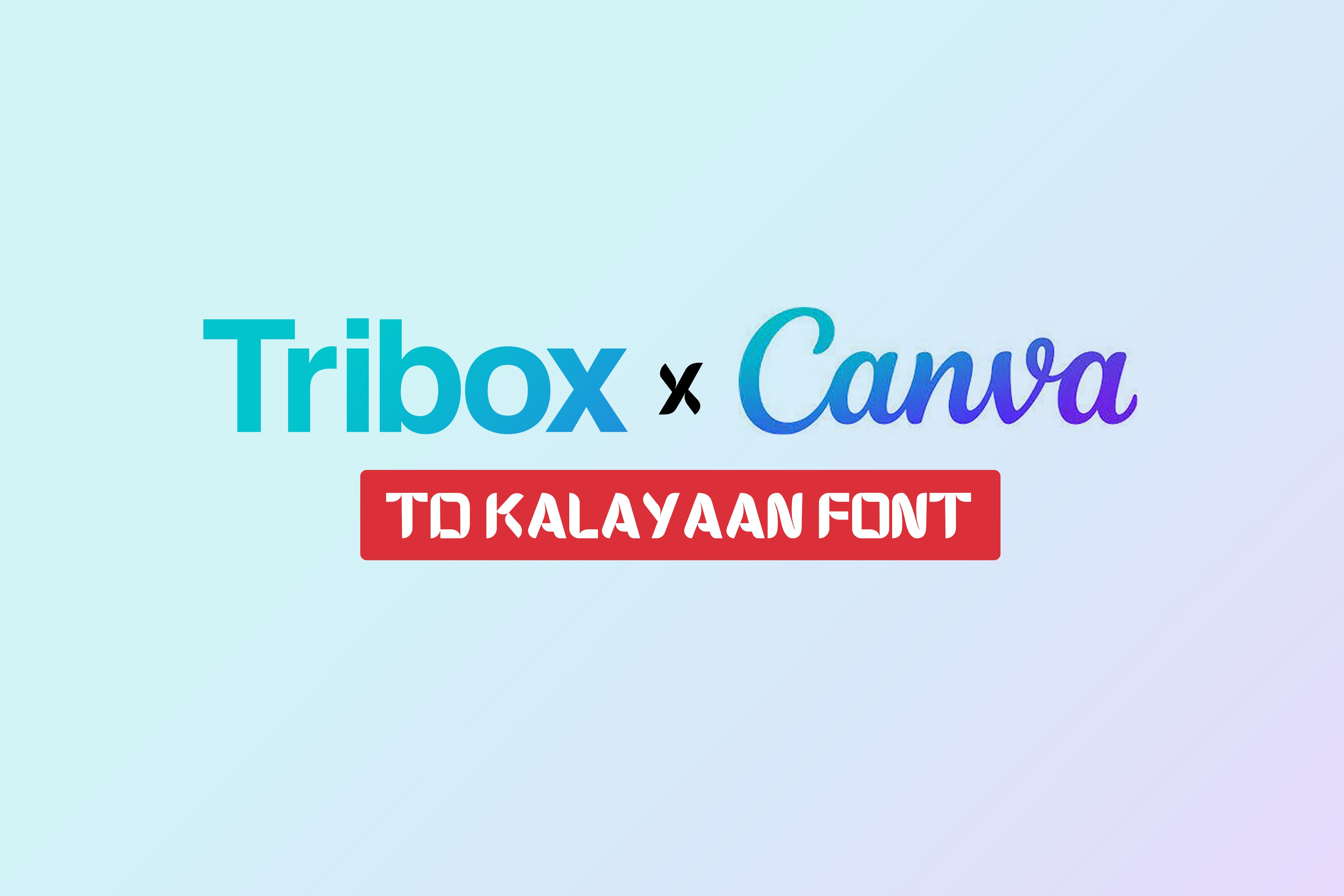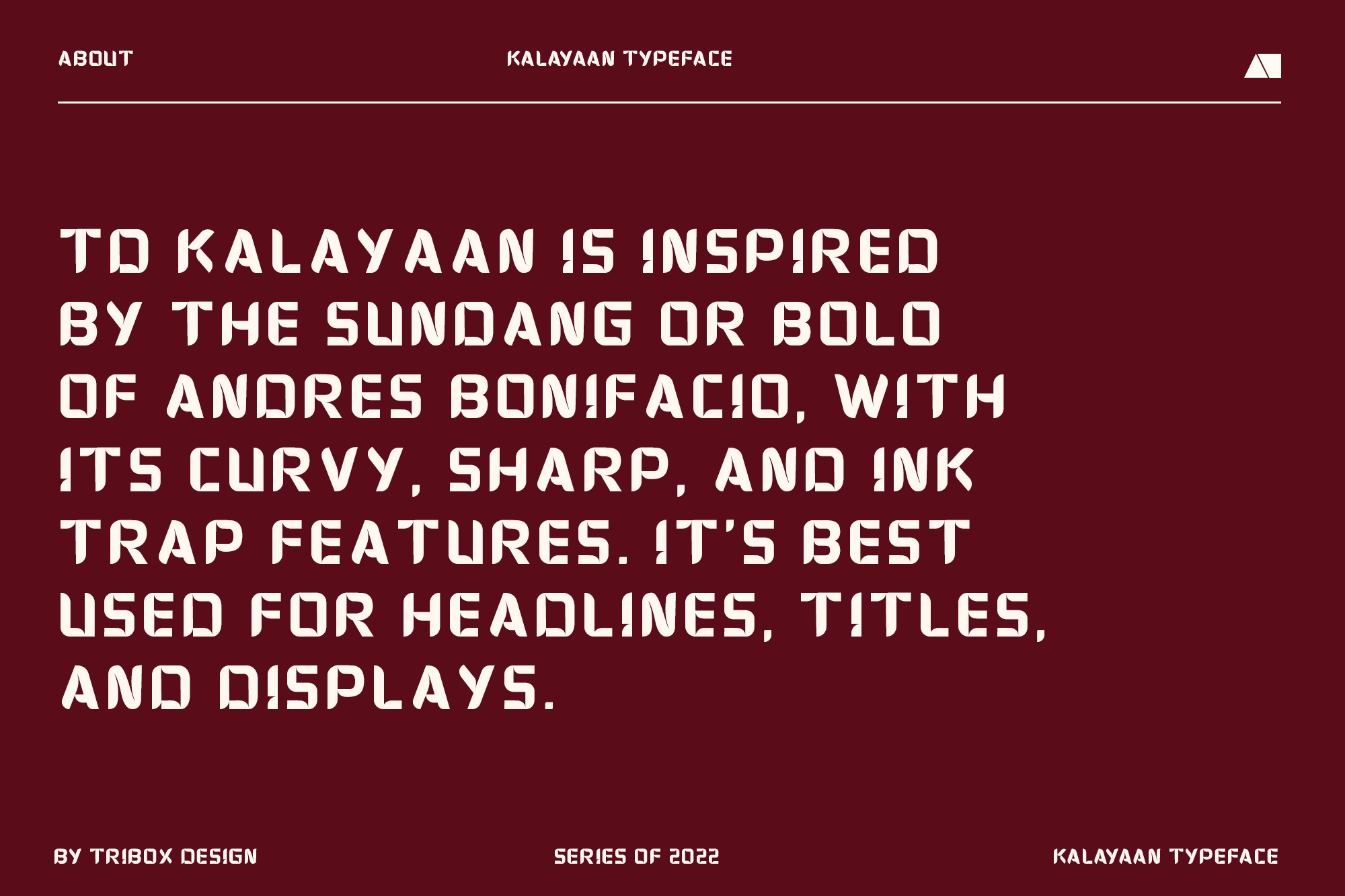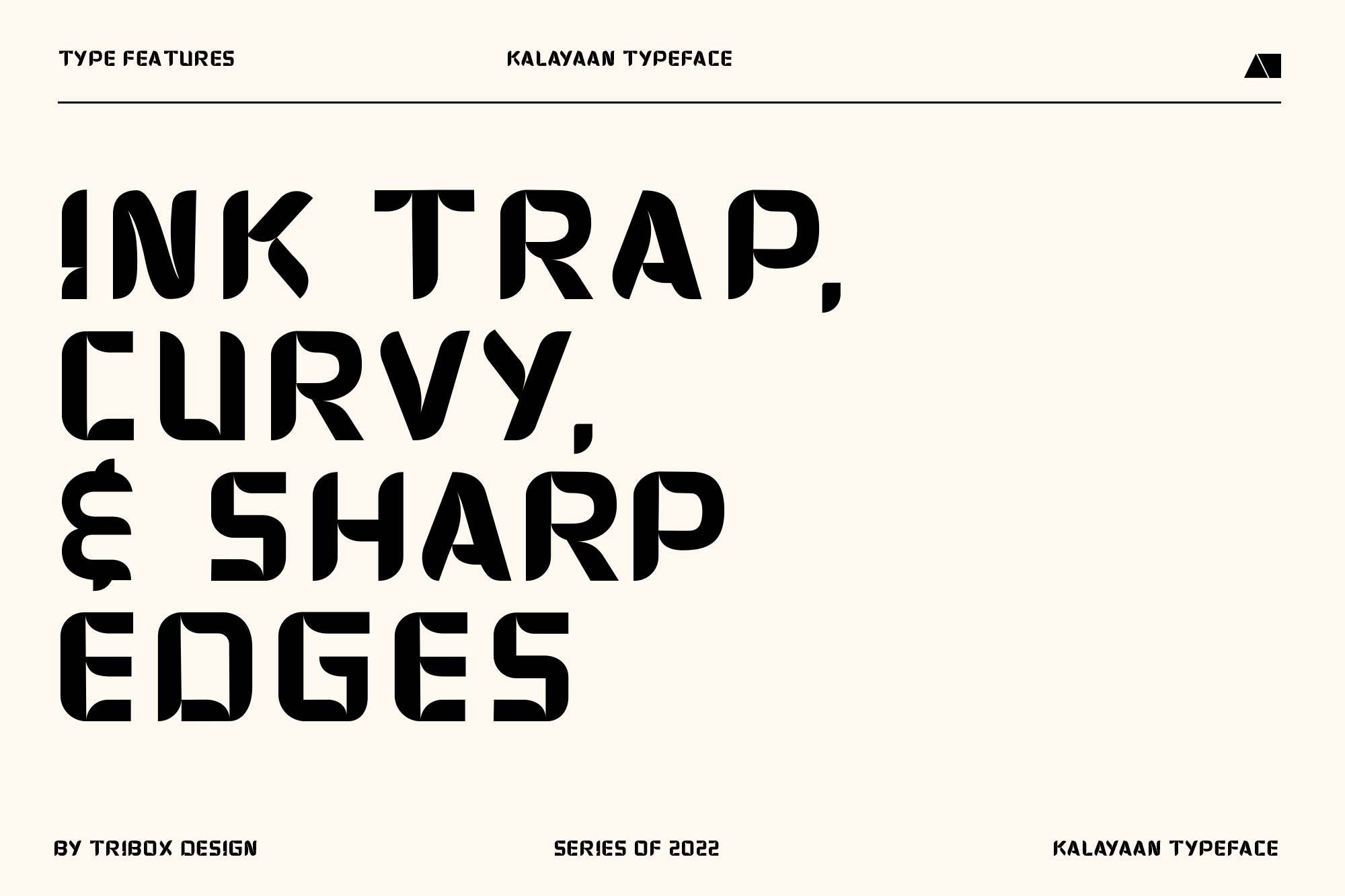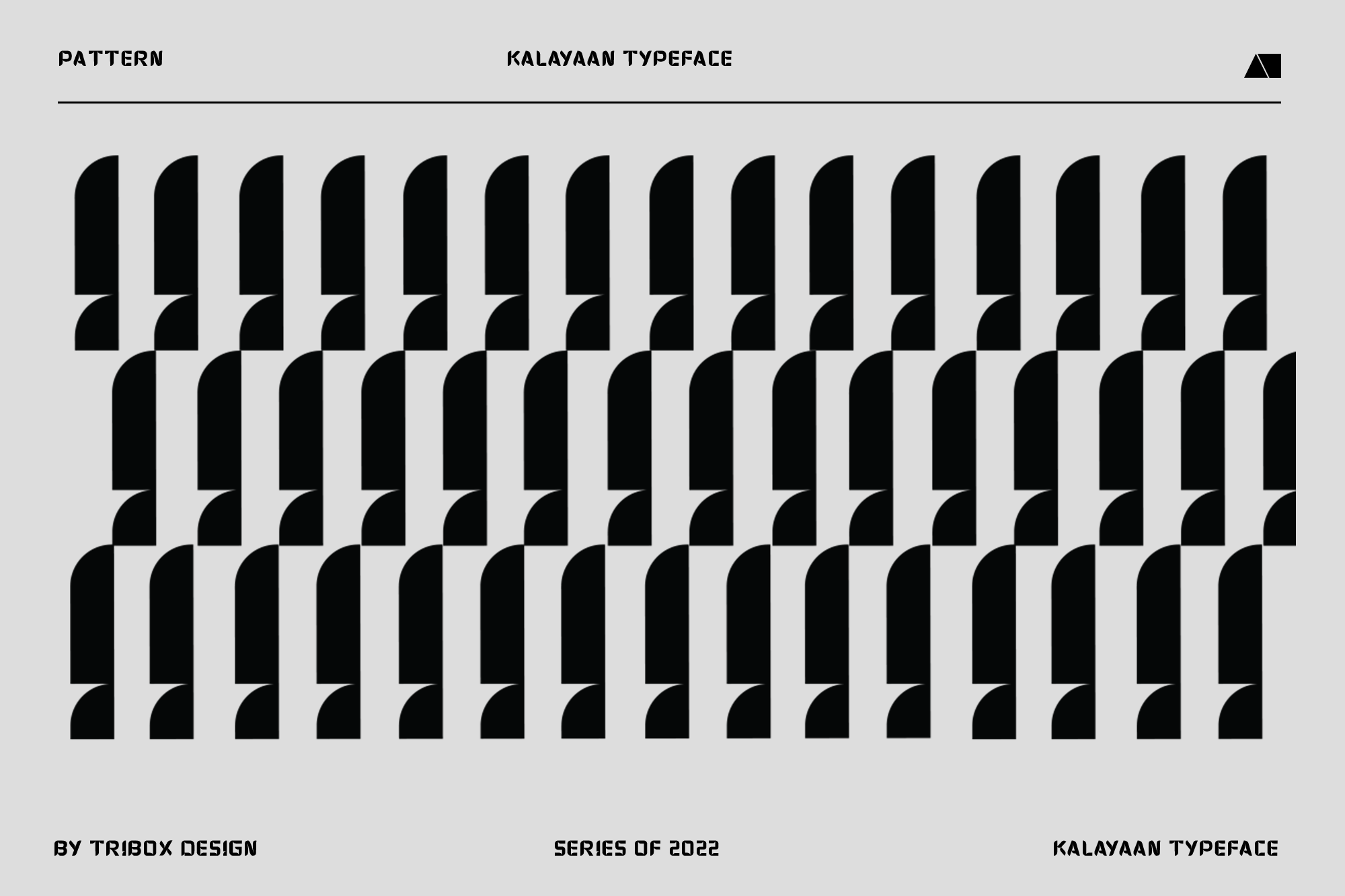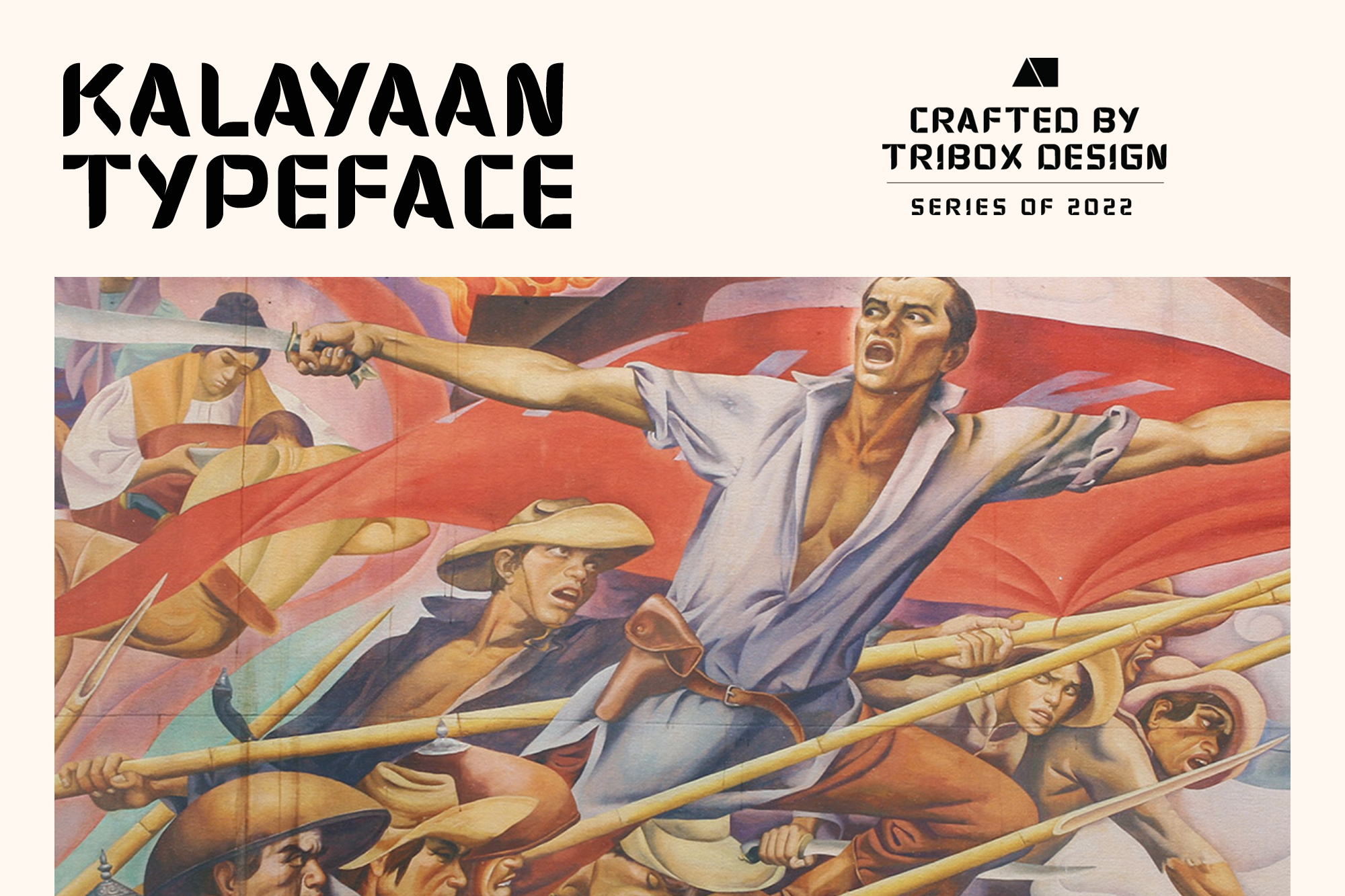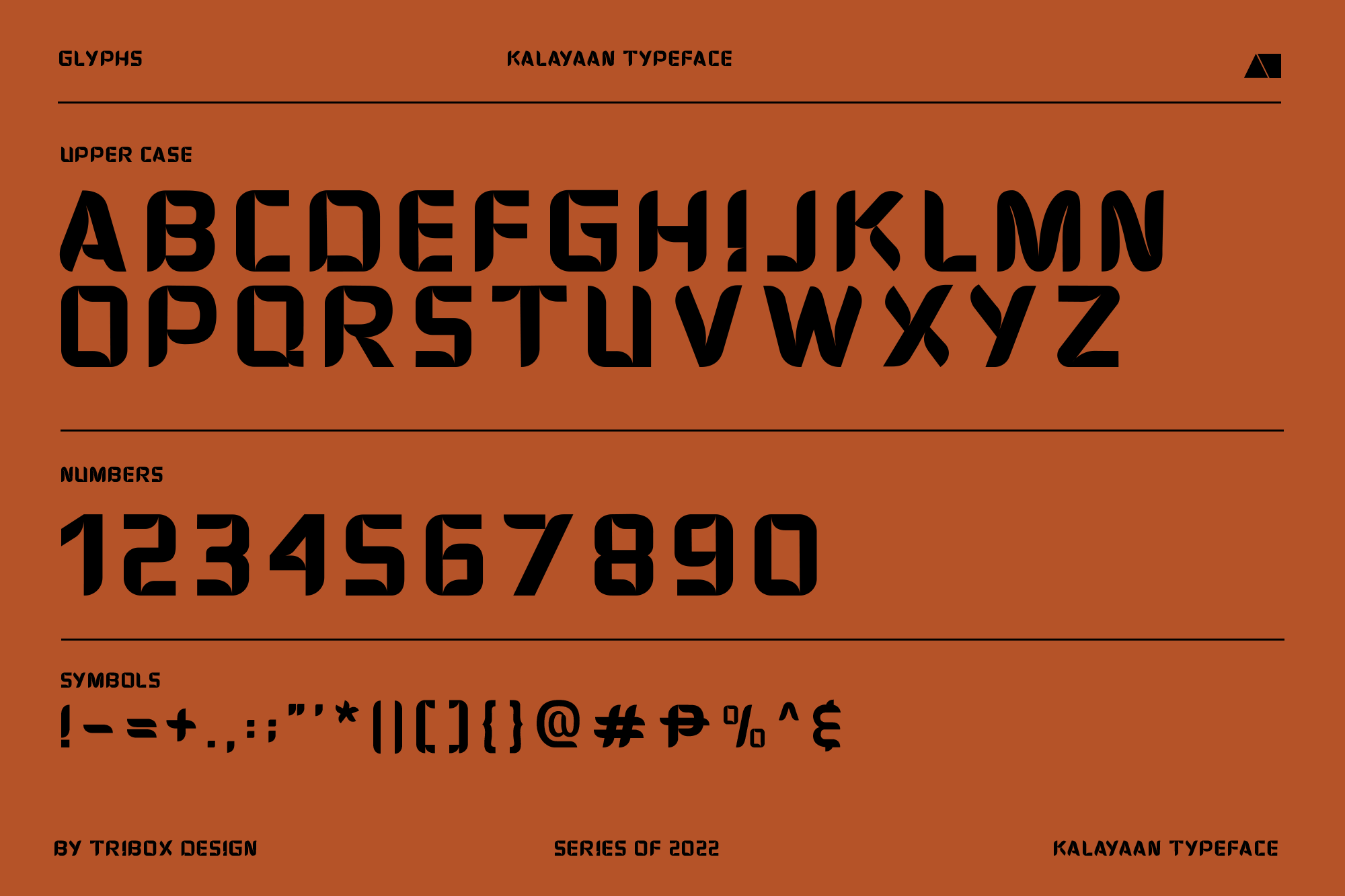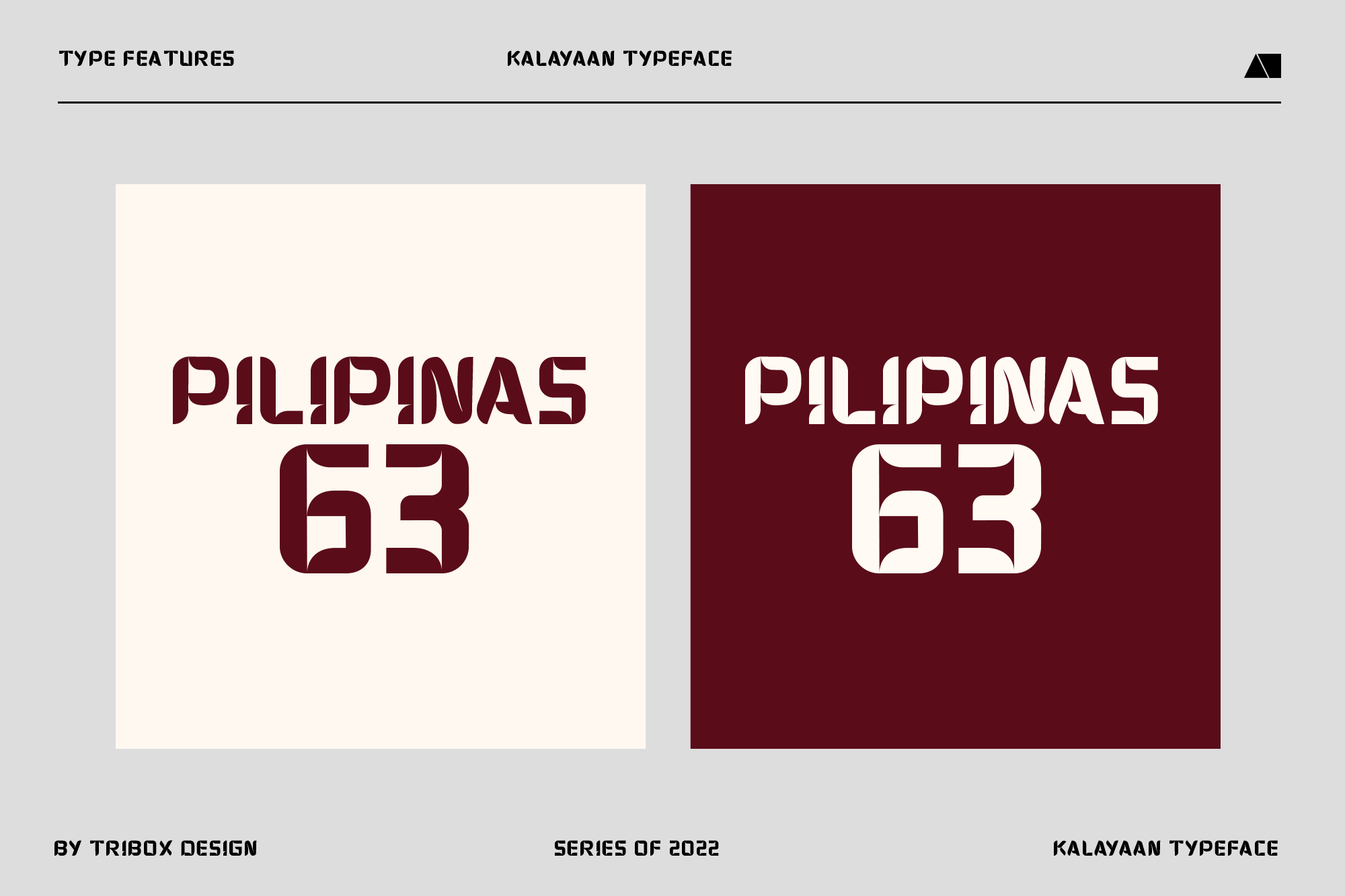
Tribox Design's TD Kalayaan font is now on Canva!
Tribox Design’s TD Kalayaan font is now on Canva!
TD Kalayaan is inspired by the Sundang or Bolo of Andres Bonifacio, with its curvy, sharp, and ink trap features. It’s best used for Headlines, Titles, and Displays.